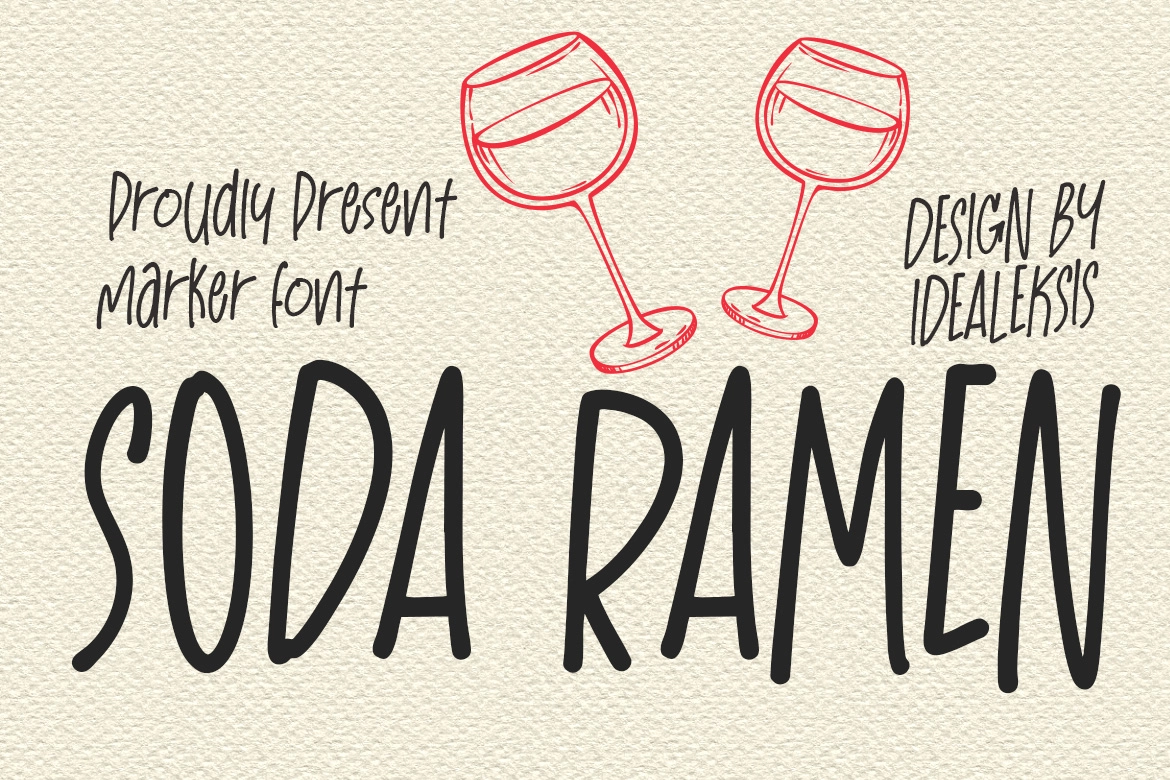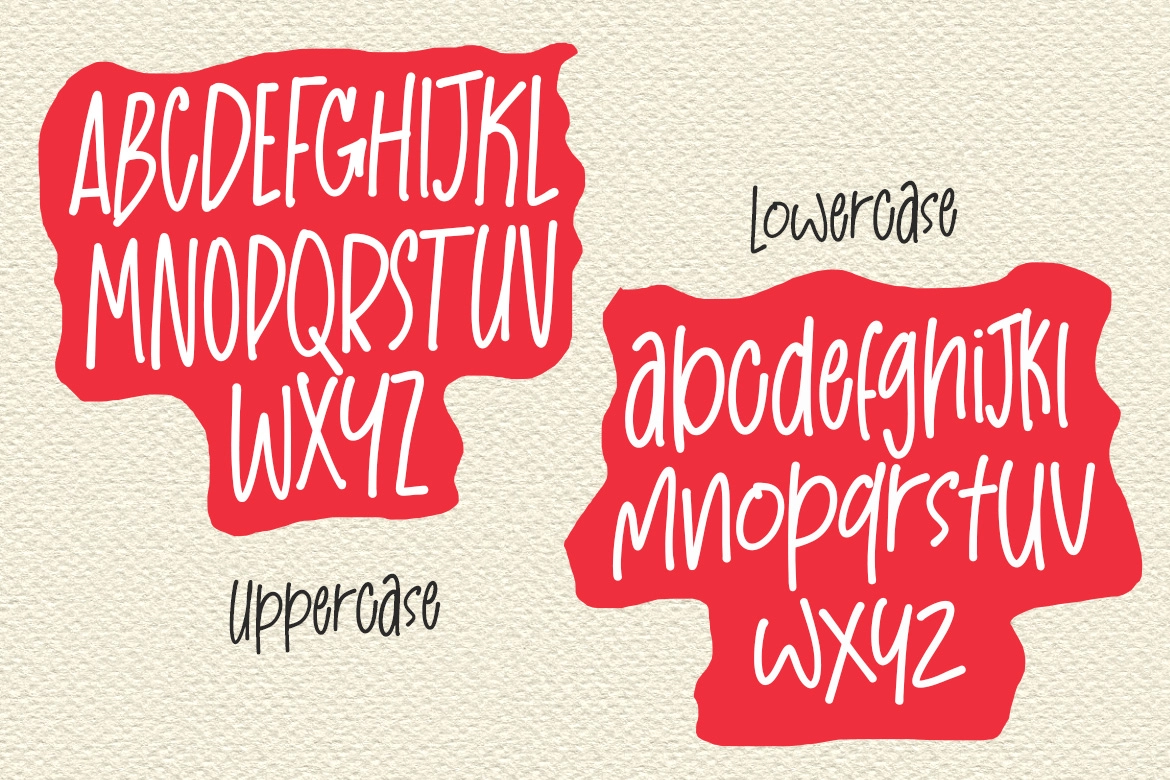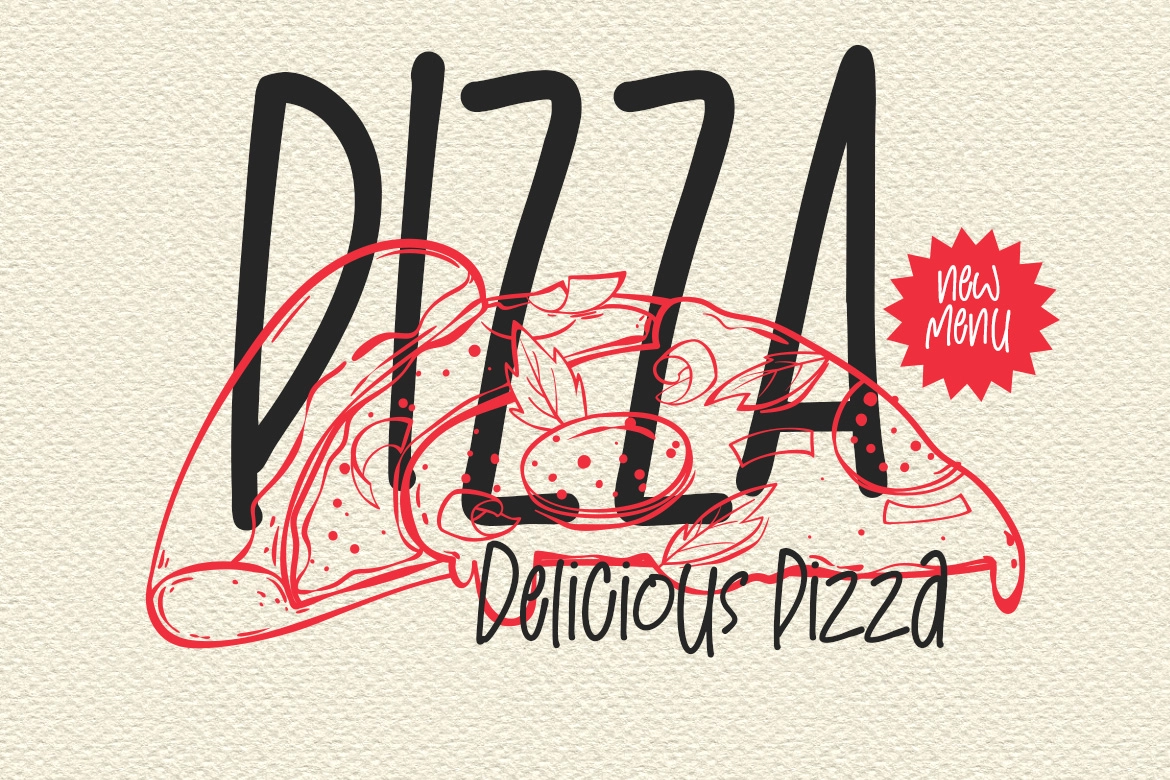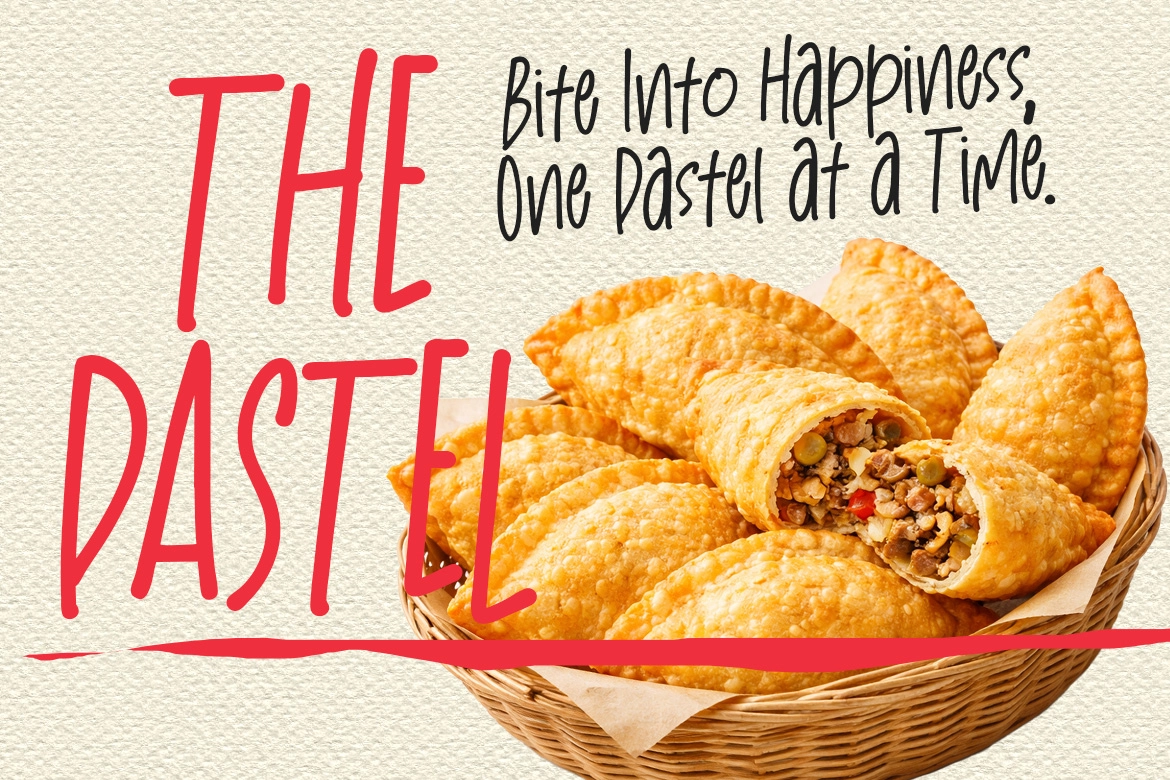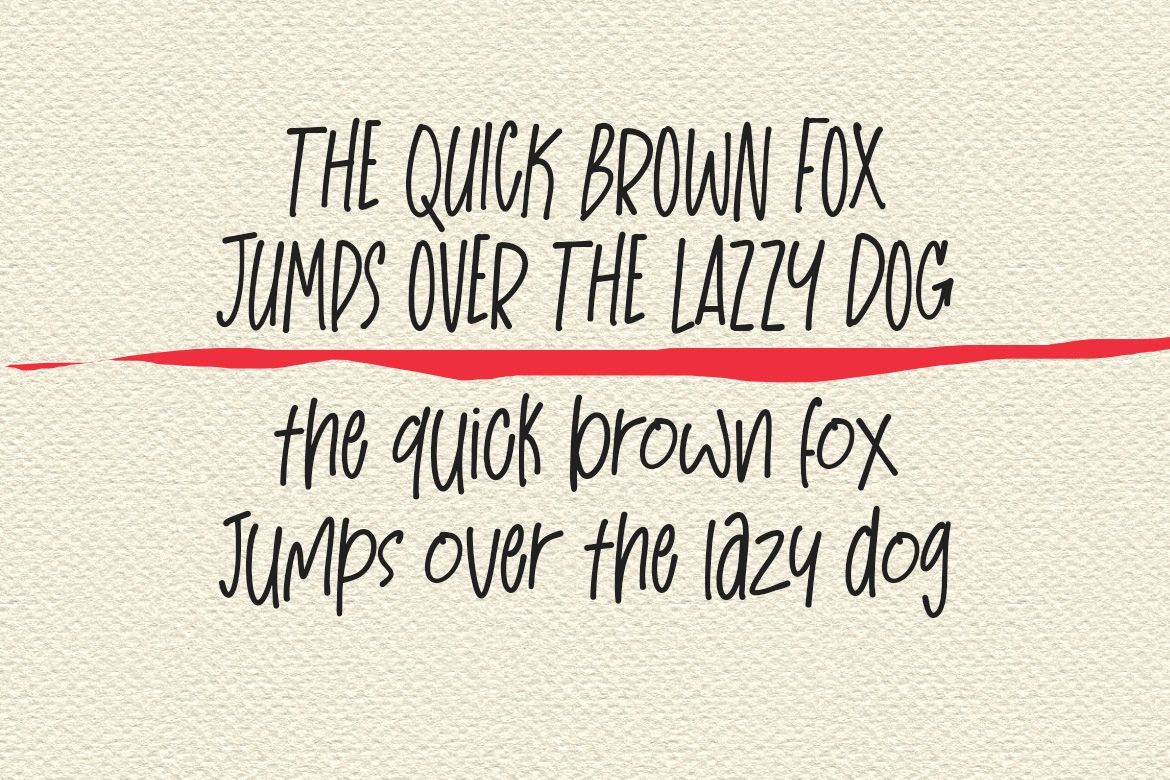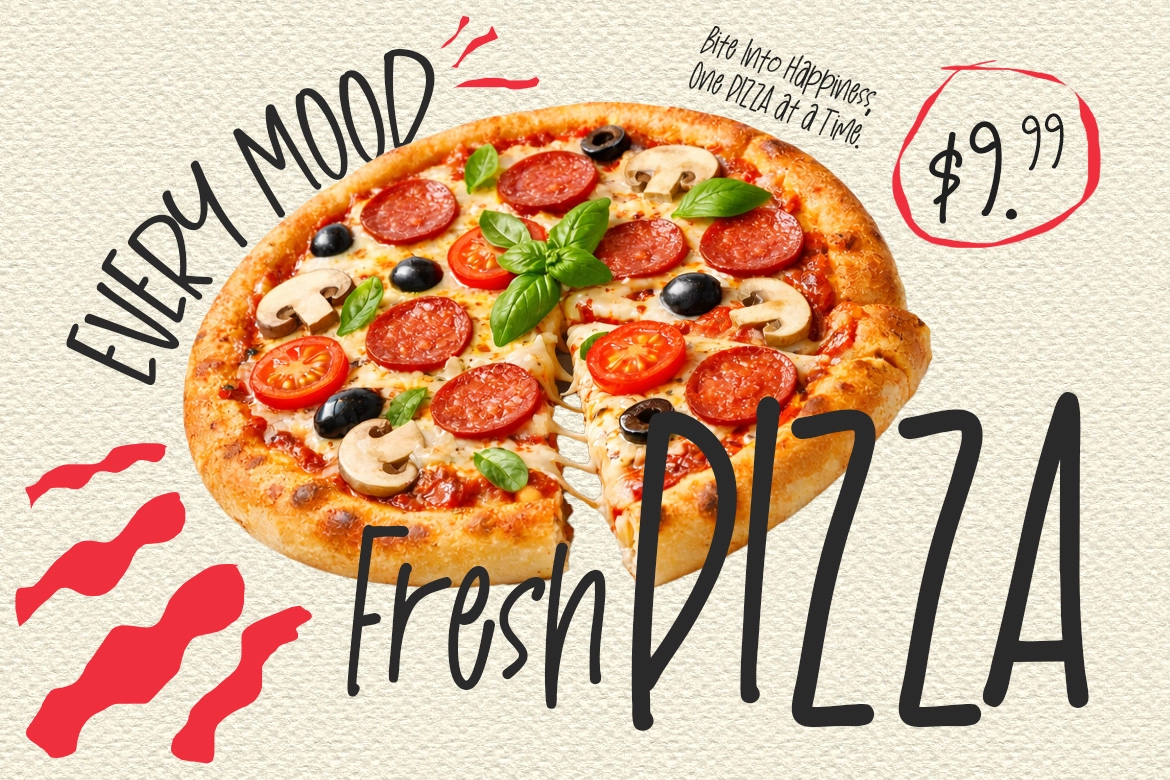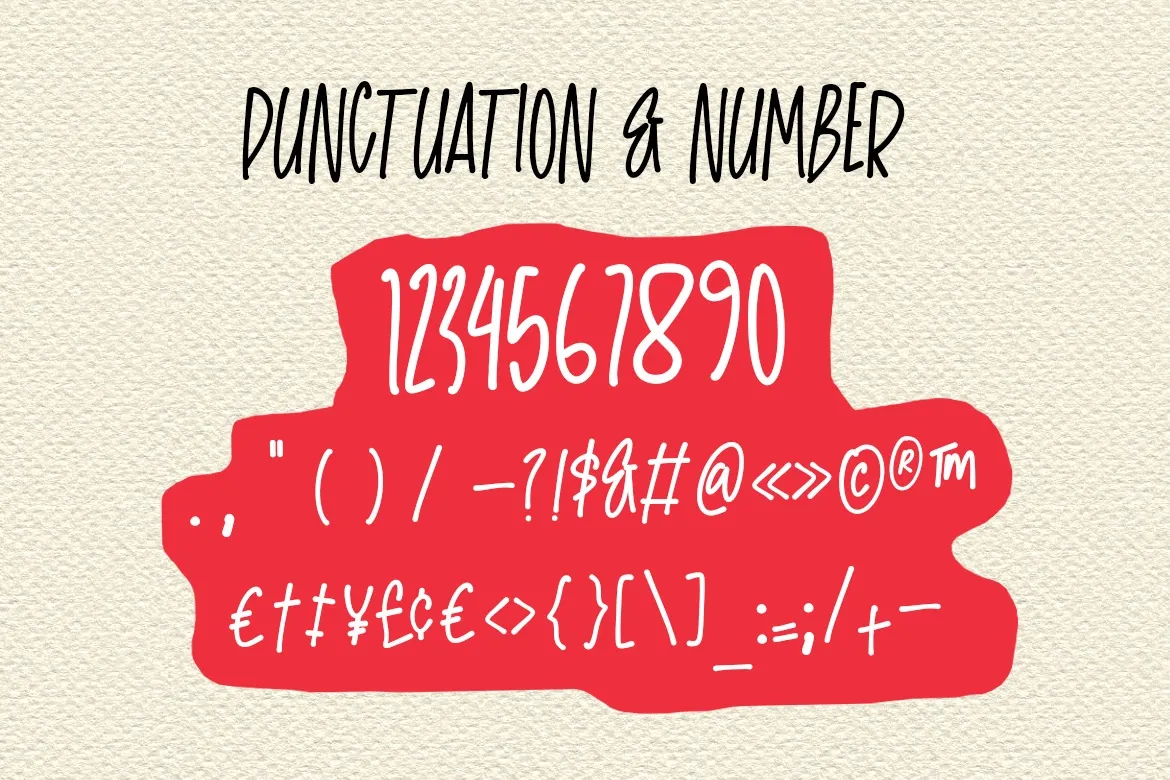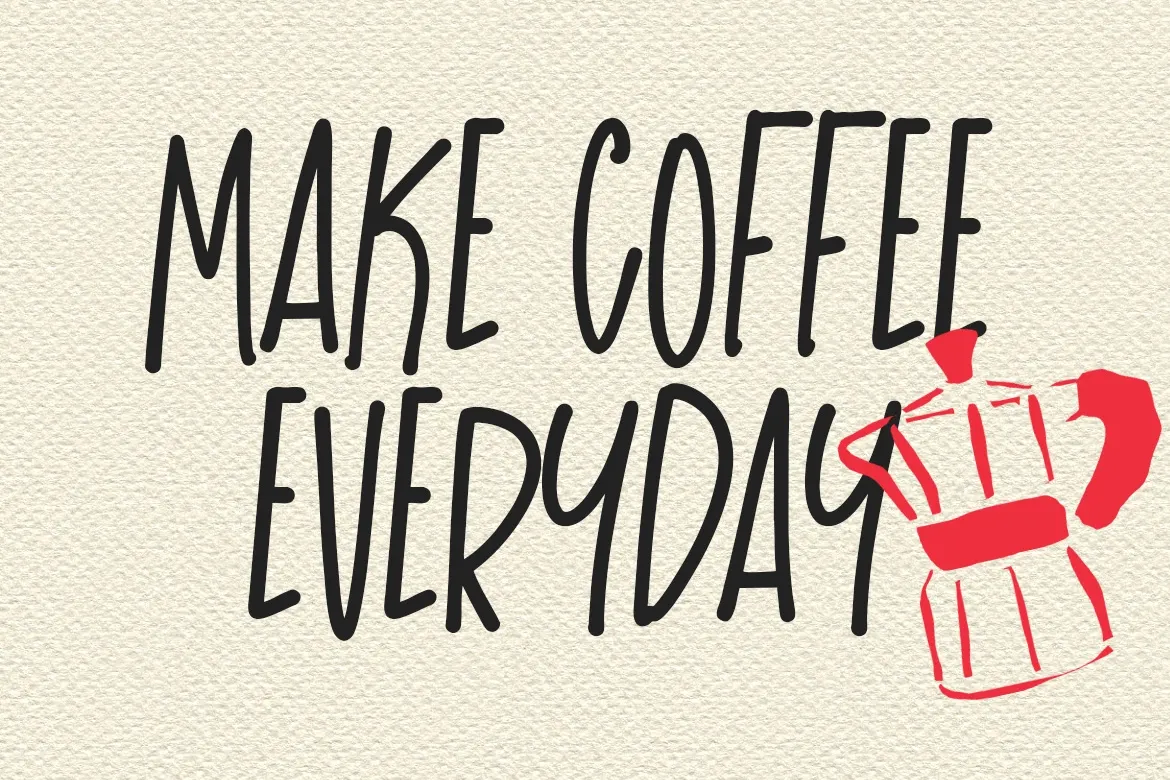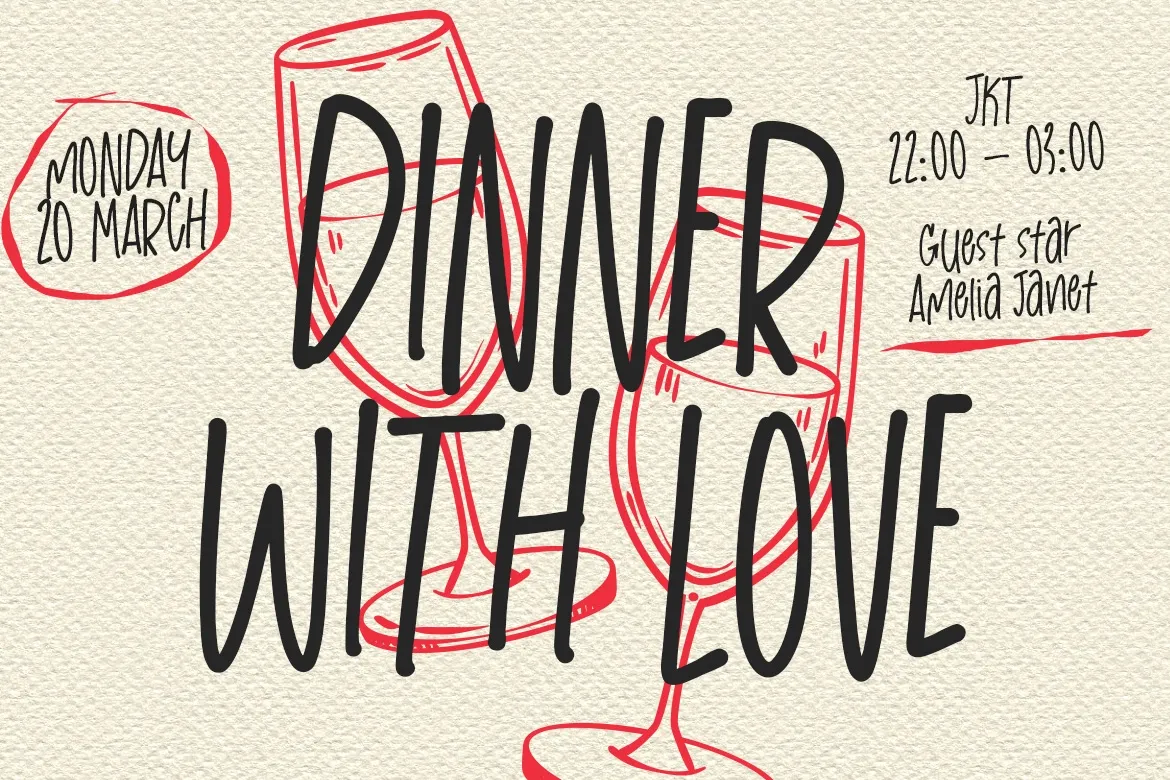
Soda Ramen - Playful Handwritten Font
Soda Ramen – Playful Handwritten Font is a lively and expressive typeface inspired by casual marker lettering and spontaneous hand-drawn styles. With its tall, condensed proportions and smooth rounded edges, this playful handwritten font brings a warm, friendly personality to any design.
The slightly uneven baseline and natural stroke flow give it an authentic handwritten feel, making it perfect for projects that need a relaxed, human touch. Despite its playful nature, the narrow structure keeps your layouts clean and space-efficient, allowing you to create bold headlines without overwhelming your composition.
Perfect For:
• Bakery and café branding
• Food and beverage logos
• Restaurant menus
• Product packaging
• Social media graphics